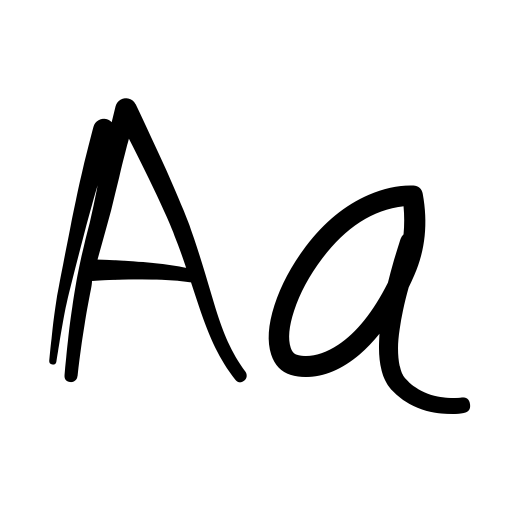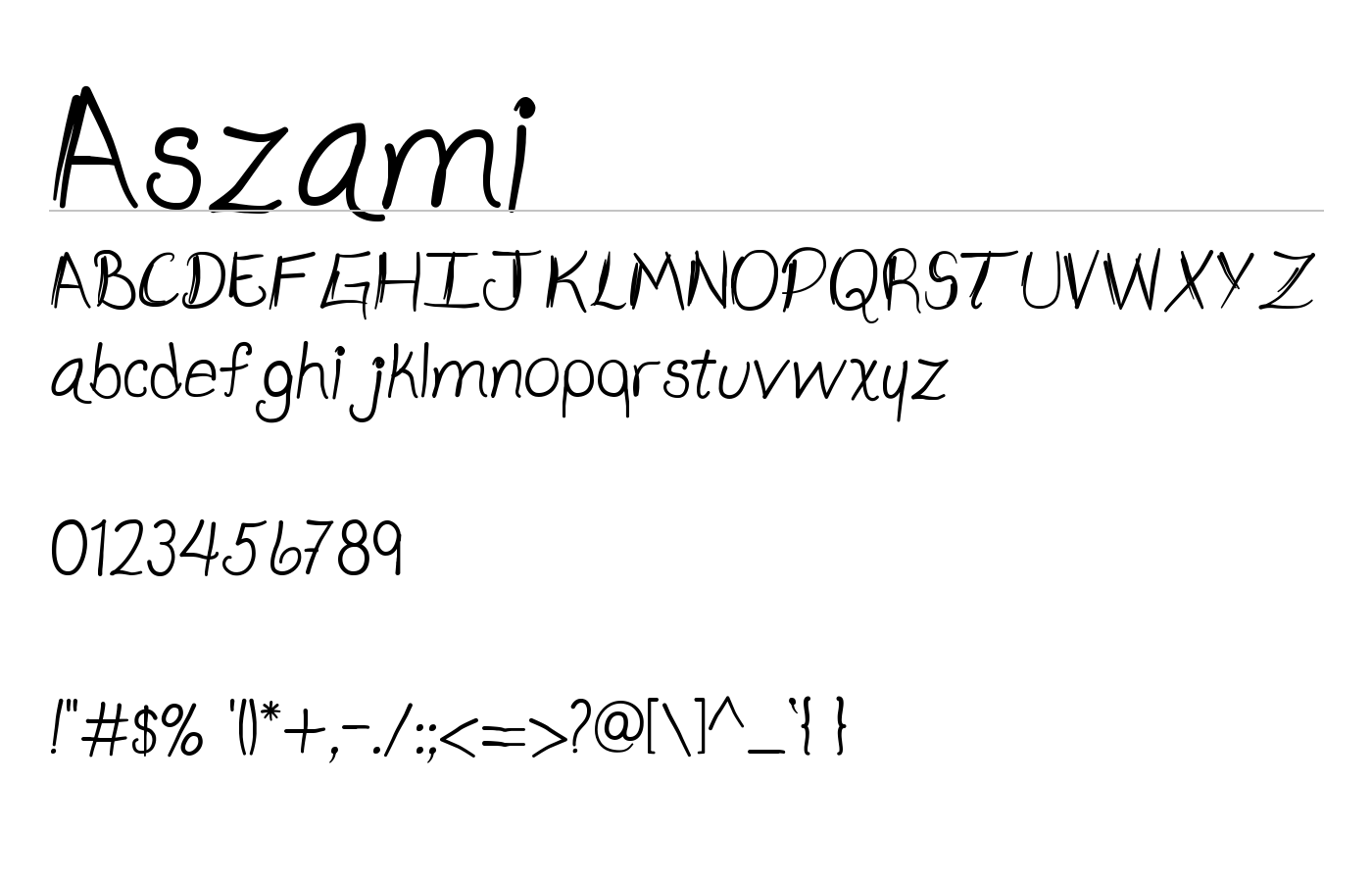
Aszami is a playful and casual handwritten font characterized by its light weight and slightly narrow proportions. Its irregular strokes and quirky letterforms give it a friendly, approachable feel that works well for informal, creative projects like greeting cards, children’s books, or casual branding. This font adds a personal touch wherever a warm and whimsical vibe is desired.
| Designer | Asley Cruz |